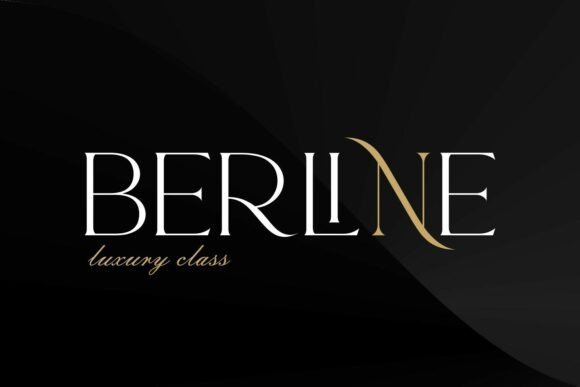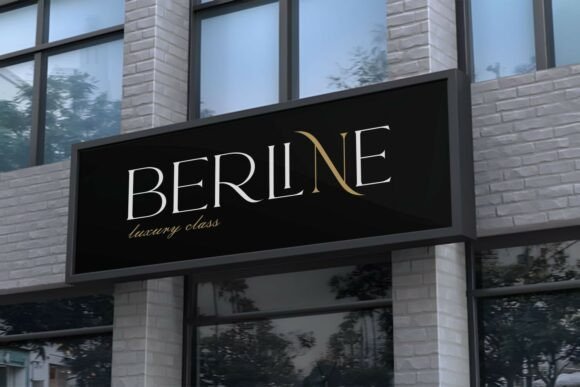
Murise is a refined luxury serif font crafted to deliver elegance, sophistication, and modern class in every design. With its high-contrast strokes, graceful curves, and distinctive letterforms, Murise brings a premium aesthetic perfect for high-end branding.